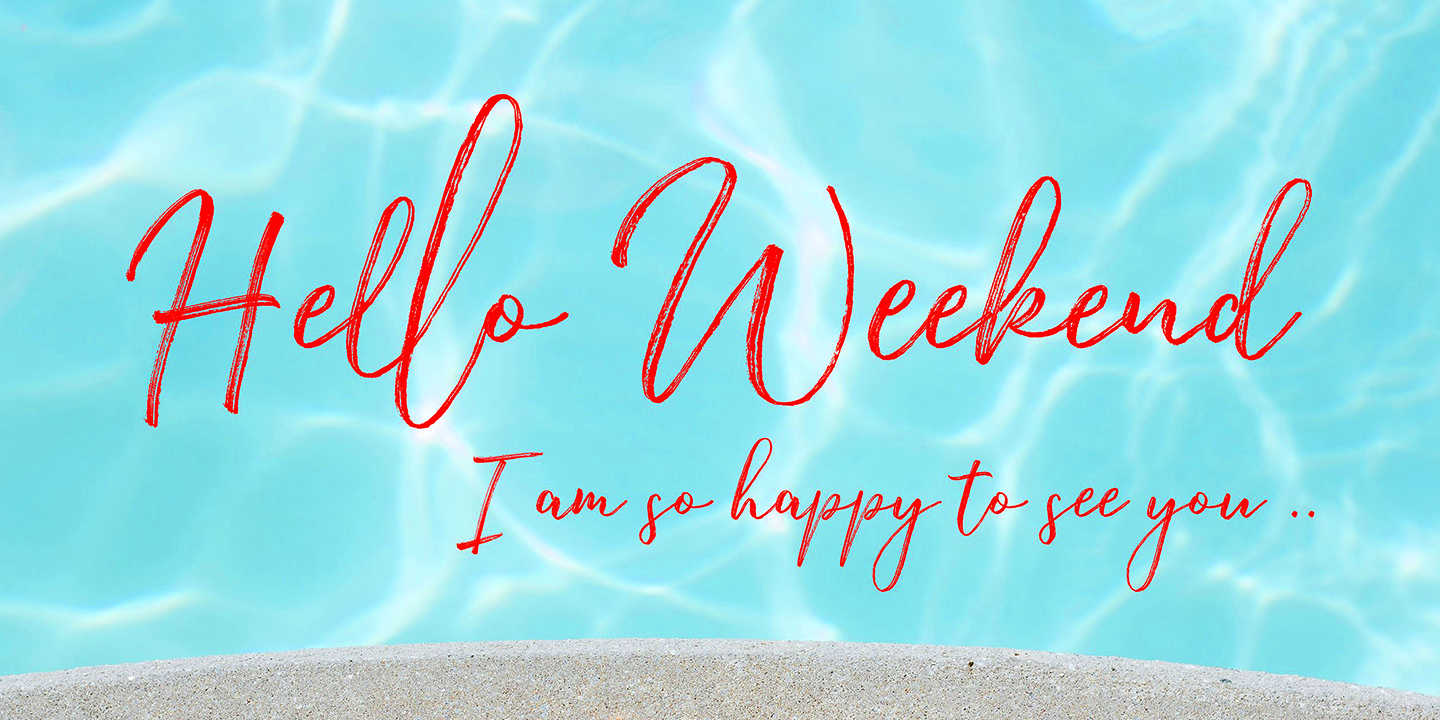
Experiment Brush Script Font is ideal for artistic studio branding, creative workshops, experimental art exhibitions, design laboratory signage, innovative product launches, avant-garde fashion labels, artistic collaboration projects, creative agency portfolios, experimental music album covers, art supply store marketing, creative process documentation, and bold artistic statement pieces.
This font is exciting because it captures the raw energy and spontaneous creativity of artistic experimentation, featuring bold brush-stroke letterforms that pulse with the same fearless innovation and expressive freedom found in artist studios where creative boundaries are constantly pushed and conventional rules are joyfully abandoned in pursuit of breakthrough artistic discoveries. The dynamic character design embodies both the controlled chaos of creative experimentation and the confident boldness required to explore uncharted artistic territories, creating typography that feels alive with creative energy and authentic artistic expression. Each letter flows with the natural rhythm and organic spontaneity that transforms ordinary text into experimental artworks that celebrate the creative process itself.
The Experiment Brush Script Font family includes regular weight with complete character sets featuring expressive brush-style numerals, artistic punctuation marks, and decorative elements inspired by paint strokes, artistic tools, and creative experimentation symbols. Advanced versions may offer additional stylistic variants with enhanced brush effects, alternate characters that create natural artistic flow, and experimental ornaments that celebrate the spirit of creative discovery and artistic innovation.
Whether you're developing creative brand identities, documenting artistic processes, or designing experimental content, Experiment Brush Script Font Free Download provides the artistic boldness and experimental energy your project needs to inspire creative thinking and celebrate the transformative power of artistic experimentation. This typeface transforms ordinary text into creative expressions that honor the courage required to experiment and the joy found in artistic discovery. The font's experimental character makes it perfect for brands and projects that embrace creative risk-taking and artistic innovation. Creative professionals and experimental artists will love how this font brings authentic artistic experimentation to their work with its genuinely expressive and boldly experimental character that celebrates the creative process.